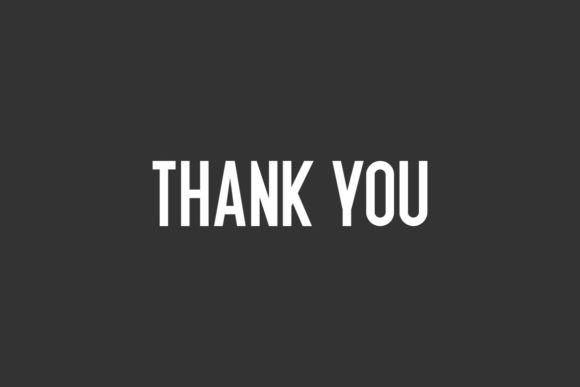
Nikeflix Font
Nikeflix is a simple and bold sans serif font. This beautiful and professional typeface is suitable for film posters, headlines, block letters, subheadings, logo designs, and so much more.